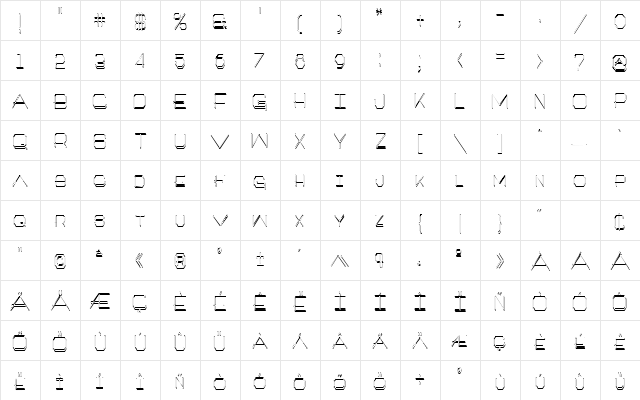
Artlook 3-D Narrower Regular
Design Context for Artlook 3-D Narrower Typeface
Artlook 3-D Narrower offers clean, dependable letterforms without strong stylistic allegiance, making it a practical choice for designers who need flexibility. The condensed width makes it efficient for tight spaces without sacrificing legibility.